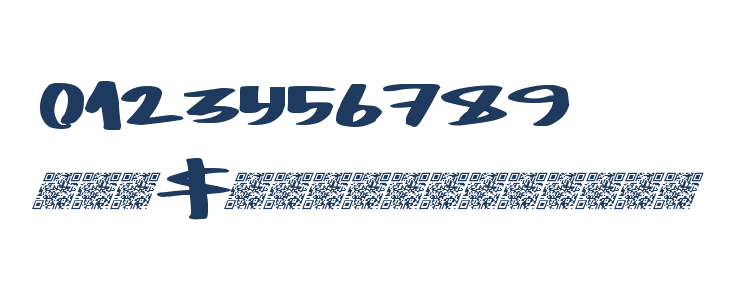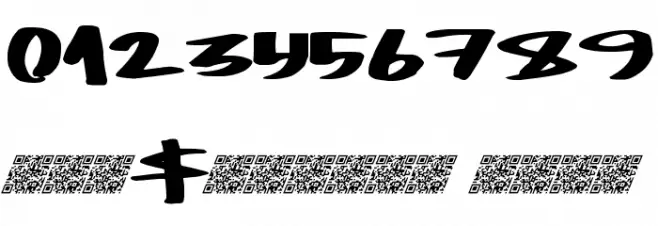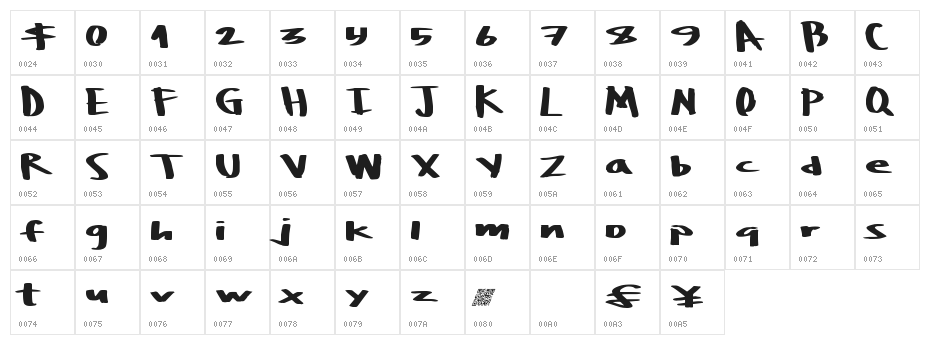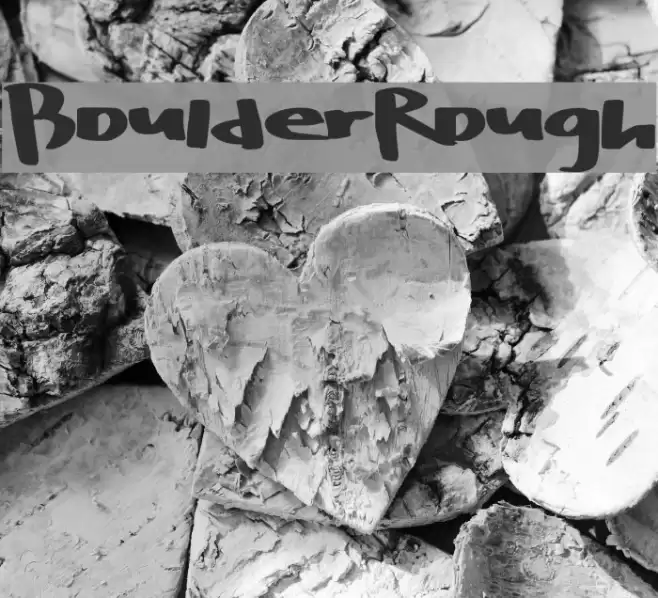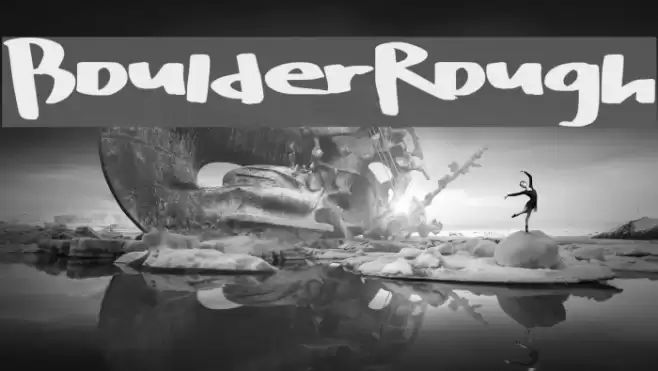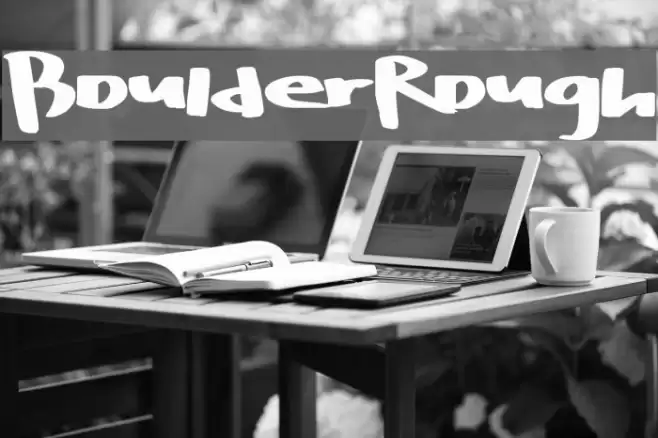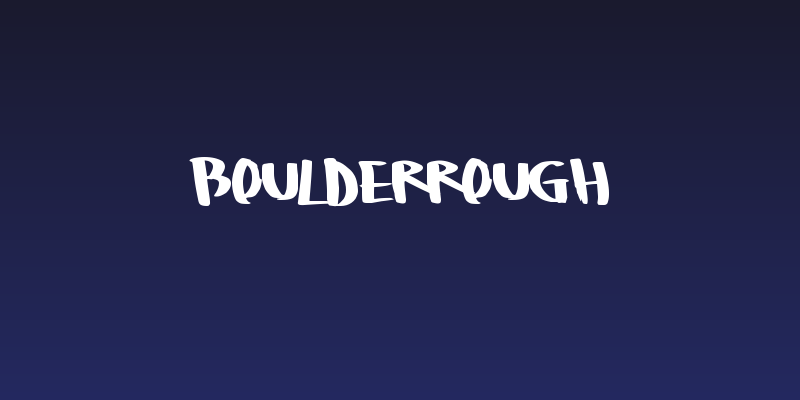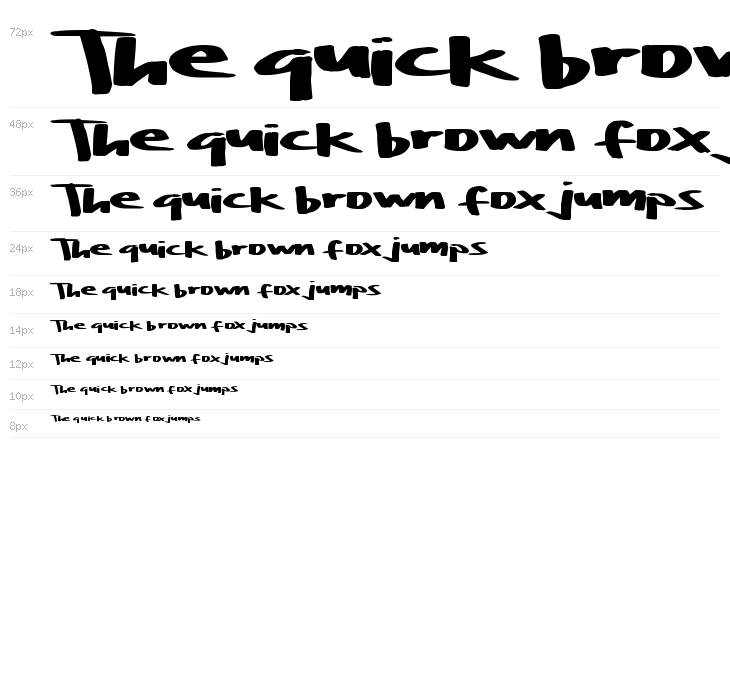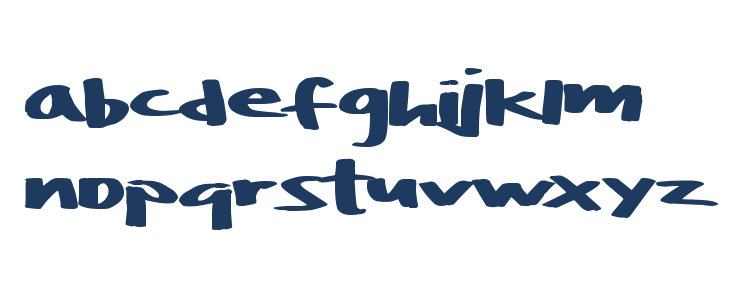
BoulderRough Font
BoulderRough Description
This font features a bold and expressive style with a hand-drawn appearance. The characters are irregular and dynamic, giving a sense of movement and energy. The uppercase letters are particularly striking, with thick strokes and uneven edges that create a rugged, organic feel. The lowercase letters maintain this energetic style, with some characters exhibiting unique flourishes. The numerals are consistent with the overall design, bold and slightly irregular, adding to the font's distinctive personality. Special characters are also included, maintaining the same rough and bold aesthetic.
| Proposed Projects | Ideal for projects that require a bold and expressive touch, such as posters, logos, and branding materials. It can also be used for headlines and titles that need to stand out. |